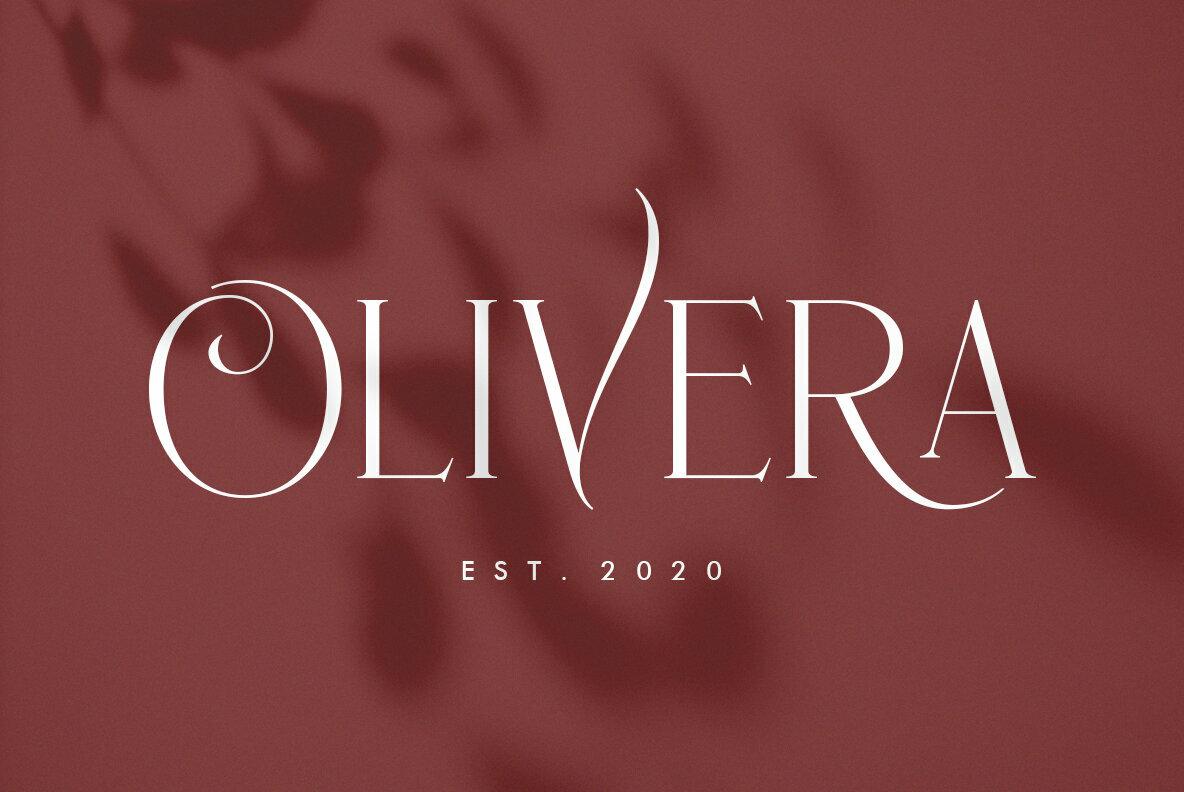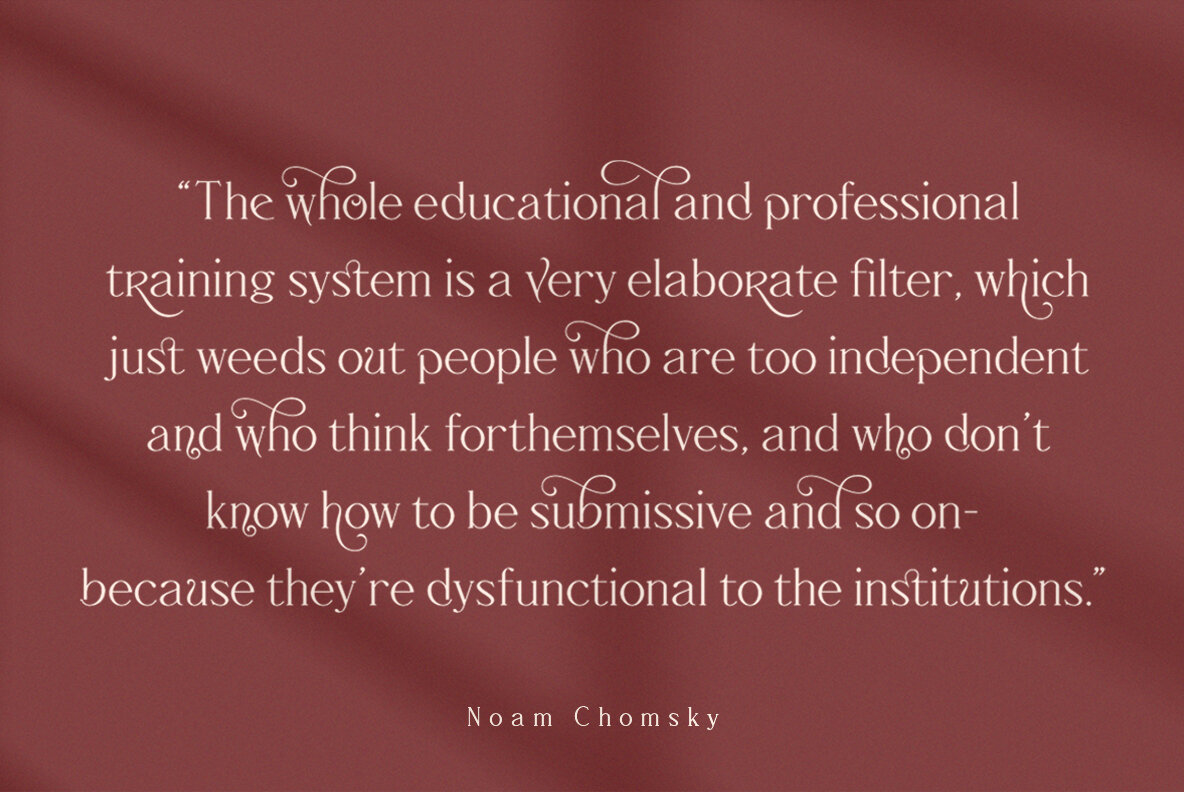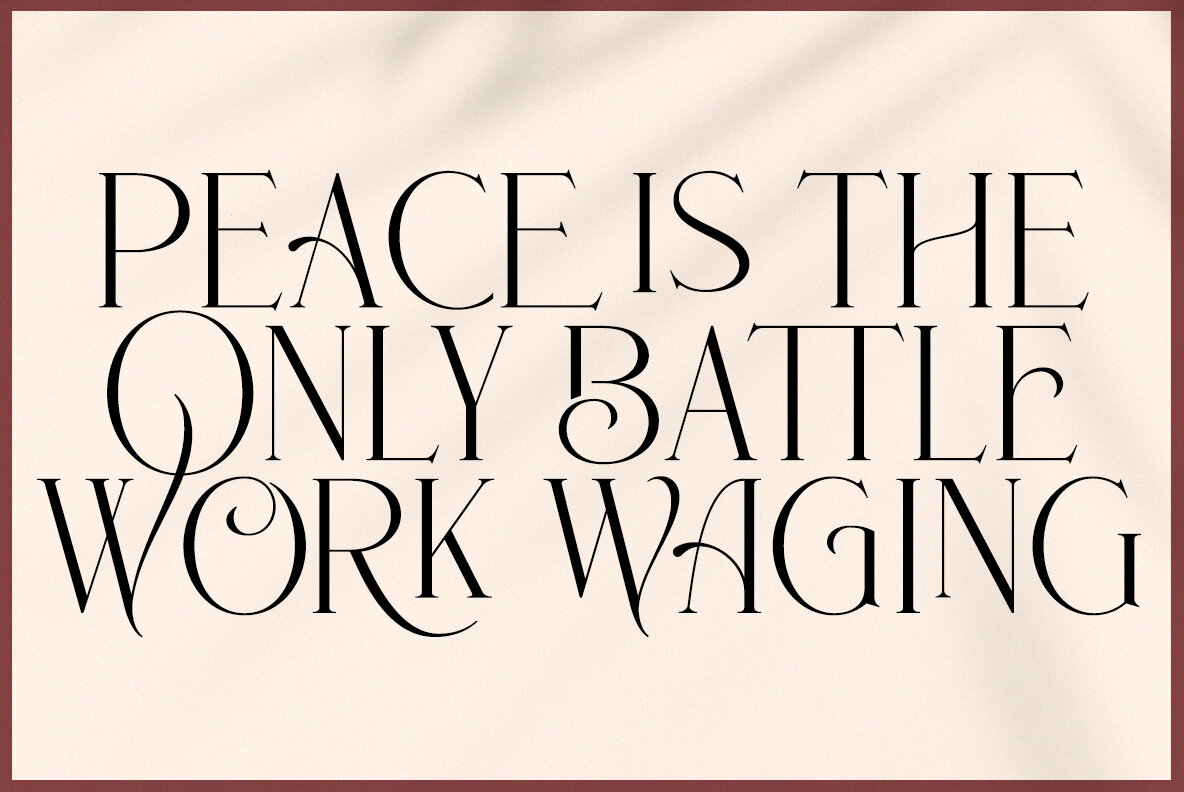
Nirotica Font
Nirotica captures the elegance and sophistication of timeless serif fonts while introducing modern flair into any project. Its changing characters and alternative styles infuse your designs with a touch of luxury, making it an exceptional choice for formal applications. Whether you're crafting invitations, designing restaurant menus, or branding a fashion line, Nirotica adds an unparalleled touch of refinement.Nirotica: A Luxurious Serif Font for Modern Design
Comprehensive Features